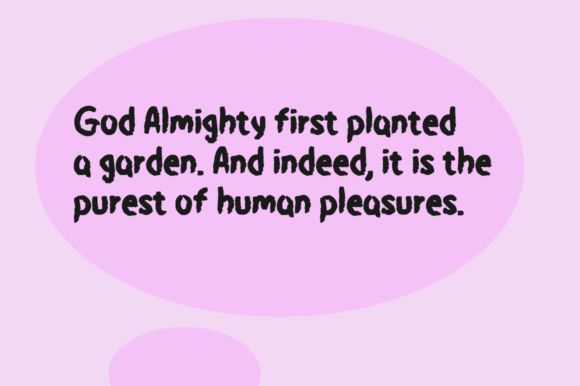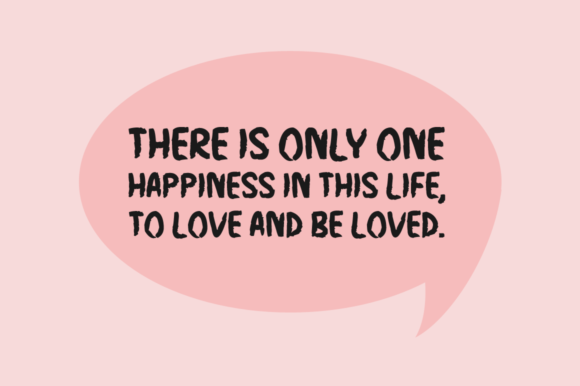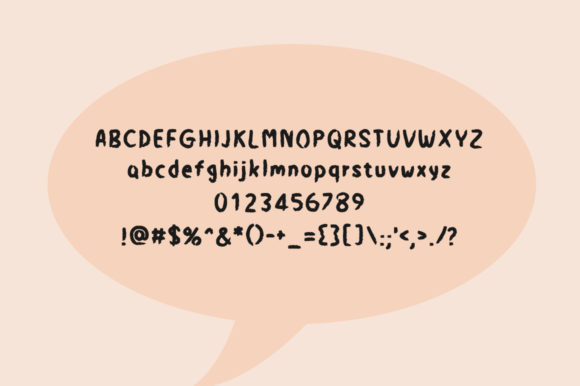
Introduction to Olivia Madison Font
Olivia Madison is a playful, yet elegant display font with a unique charm.
Get inspired by its lovely and authentic feel .
Key Features of Olivia Madison Font
Why Choose Olivia Madison Font?